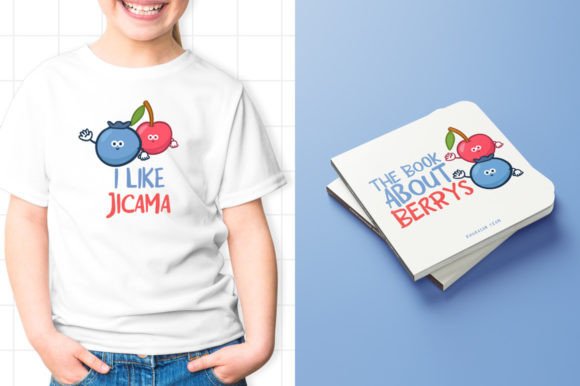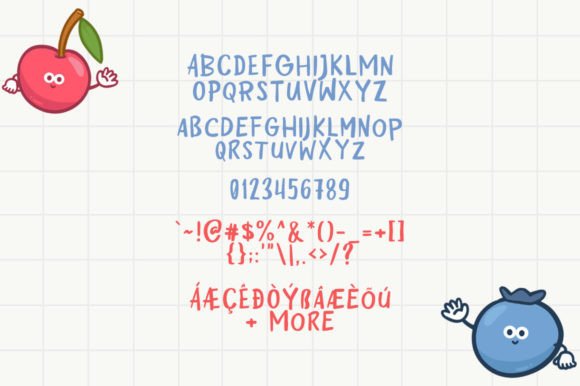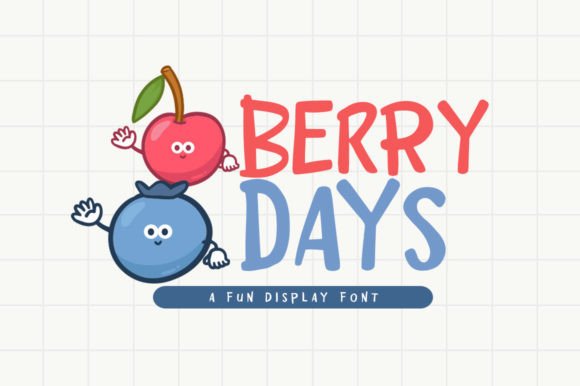
Berry Days Font: The Perfect Playful Companion for Your Designs
Are you on the hunt for a font that adds a dash of playfulness and fun to your designs? Look no further than the Berry Days Font! This delightful display font is designed to bring a smile to your audience’s faces, making it an ideal choice for cartoon-related designs, children’s games, and any creative project that requires a lighthearted touch.
What Makes Berry Days Font So Special?
Berry Days Font is more than just a font – it’s an experience. Its fun and cool design instantly elevates the tone of your project, making it perfect for designers and crafters who want to create engaging and youthful content. Whether you’re working on a children’s book, an educational game, or a cartoon series, this font is sure to capture the imagination of your audience.
Key Features of Berry Days Font
- Playful Design: The font boasts a playful and whimsical design that’s sure to delight both kids and adults alike.
- Display Font: Berry Days Font is specifically designed as a display font, making it perfect for headlines, titles, and short paragraphs.
- Cartoon-Related Designs: Its fun and quirky style makes it an excellent choice for cartoon-related designs, comics, and animated series.
- Children’s Games and Education: The font’s clear and readable design makes it suitable for children’s games, educational materials, and children’s books.
- Customizable: Berry Days Font can be easily customized to fit your project’s specific needs, allowing you to experiment with different colors, sizes, and styles.
Why Designers and Crafters Love Berry Days Font
Berry Days Font has quickly become a favorite among designers and crafters due to its versatility and charm. Here are a few reasons why:
- Time-Saving: With Berry Days Font, you can quickly create engaging and playful designs without spending hours on font selection and customization.
- Consistency: The font’s consistent design ensures that your project looks cohesive and professional, even when using different font sizes and styles.
- Emotional Connection: Berry Days Font helps create an emotional connection with your audience, making your project more memorable and impactful.
| Font Name | Berry Days Font |
| Author | si.jalembe |
In conclusion, Berry Days Font is an excellent addition to any designer’s or crafter’s toolkit. Its playful and fun design makes it perfect for a wide range of projects, from cartoon-related designs to children’s games and educational materials. With its customizable features and ease of use, Berry Days Font is sure to become your go-to font for adding a touch of whimsy and fun to your creations.